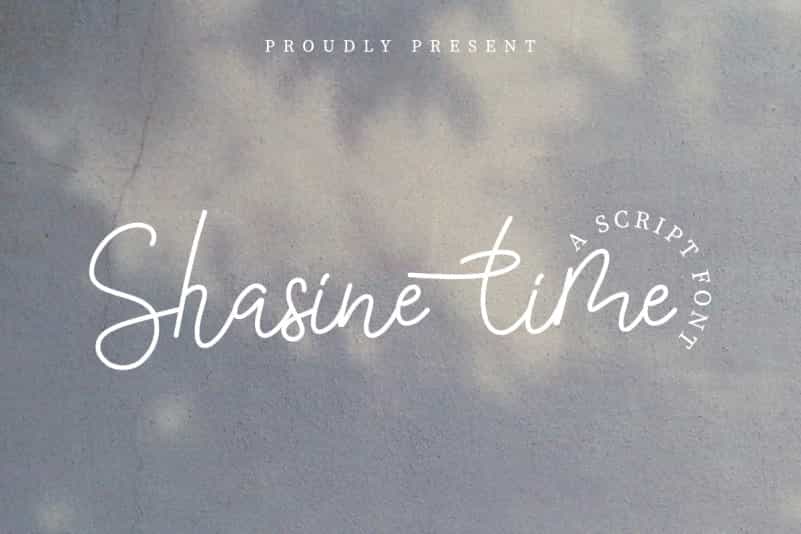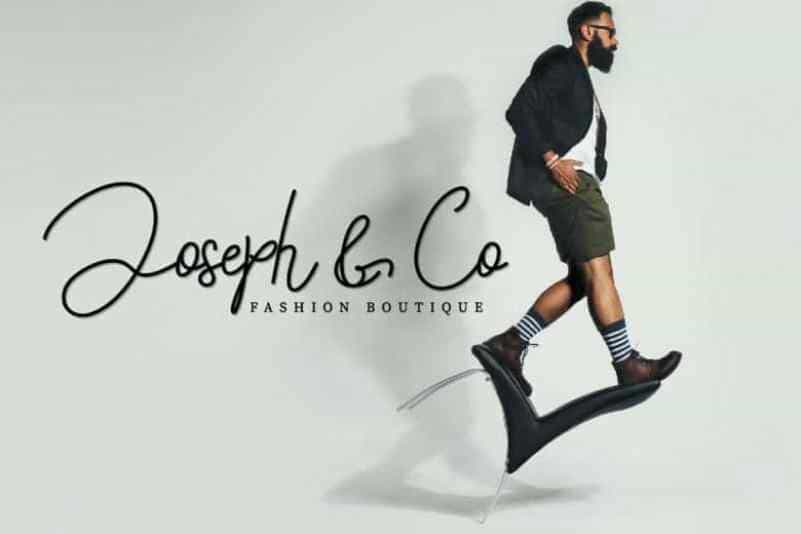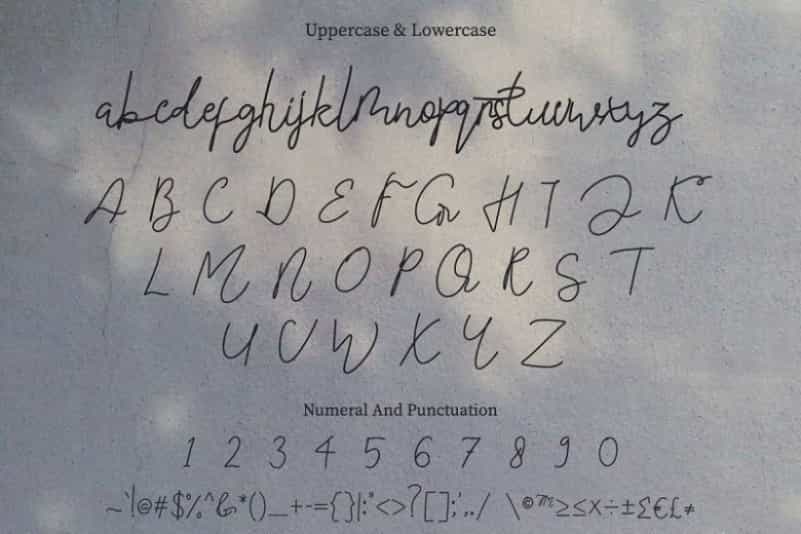
Discover Shasine Time Handwritten Script Font, part of the Handwritten Script Monoline collection—a versatile and unique font perfect for adding a personal touch to your projects. Download it for free and enjoy crafting designs with style, from invitations to social media posts. This font is available exclusively for personal use, giving you the freedom to create without limits. Unlock your creativity with Shasine Time Handwritten Script Font today!
Shasine Time is a unique handwritten typeface family that features stylish and elegant glyphs. This font is stunning with a gorgeous characters set that is flawlessly controlled with well spaced and kerning. The style of this font is elegant, distinctive elegant, sleek and traditional pen style.